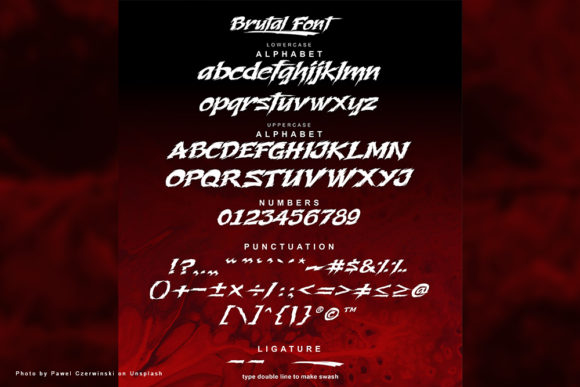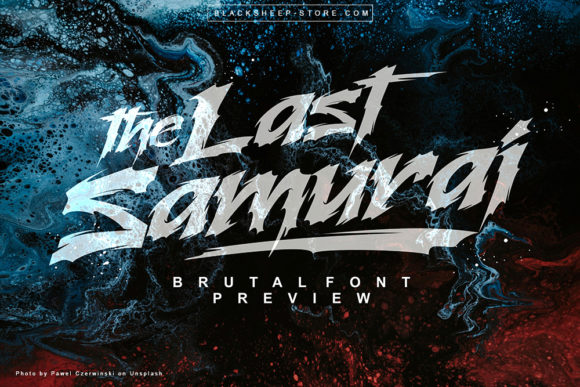
Unleash Your Design’s Potential with Brutal Font: A Distorted Display Powerhouse
In the realm of typography, fonts play a pivotal role in shaping the visual identity of a design. Among the myriad of fonts available, one that stands out for its unique charm and versatility is the Brutal Font. This distorted display font has been carefully handcrafted to capture the hearts of designers and crafters alike, making it a true favorite in the design community.
The Distinctive Character of Brutal Font
Brutal Font boasts a distinctive character that sets it apart from more traditional fonts. Its distorted design gives it a raw, edgy feel that can instantly elevate the aesthetic of any project. Whether you’re working on a bold advertising campaign, a striking poster, or an eye-catching website header, Brutal Font can help you make a statement. Its unique style ensures that your design doesn’t go unnoticed, making it perfect for projects that demand attention.
One of the key advantages of Brutal Font is its versatility. This font is designed to look outstanding in any context, whether it’s being used on busy backgrounds or as a standalone headline. The careful craftsmanship that has gone into creating Brutal Font ensures that it remains legible and impactful, even in complex designs. This adaptability makes it an invaluable asset for designers who work on a wide range of projects.
For designers and crafters, finding the right font can often be a challenge. Brutal Font offers a solution that combines style, functionality, and ease of use. Here are a few reasons why Brutal Font is becoming a go-to choice:
• Unique Aesthetic: The font’s distorted design offers a fresh alternative to more conventional fonts, allowing designers to create distinctive and memorable visuals.
• High Readability: Despite its unconventional style, Brutal Font maintains high readability, making it suitable for use in various contexts, from digital screens to print materials.
• Time-Saving: With Brutal Font, designers can achieve professional-looking results quickly, saving time and effort in the creative process.
Tips for Using Brutal Font Effectively
To make the most of Brutal Font, consider the following tips:
• Contrast is Key: Use Brutal Font in combination with simpler fonts to create visual contrast and hierarchy in your design.
• Experiment with Colors: Don’t be afraid to experiment with different colors and gradients to enhance the font’s impact.
• Play with Sizes: Brutal Font can make a statement in large sizes, but it also works well in smaller sizes for subheadings or emphasis.
Brutal Font is more than just a distorted display font; it’s a powerful tool for designers and crafters looking to push the boundaries of their creativity. Its unique aesthetic, versatility, and readability make it an excellent choice for a wide range of projects. By incorporating Brutal Font into your design arsenal, you can create visually stunning and impactful designs that capture attention and leave a lasting impression.
Whether you’re a seasoned designer or a crafter looking to elevate your projects, Brutal Font is sure to become a favorite. Its ability to stand out in any context, combined with its ease of use, makes it a valuable asset for anyone looking to enhance their designs. So, why settle for ordinary when you can create something truly extraordinary with Brutal Font?